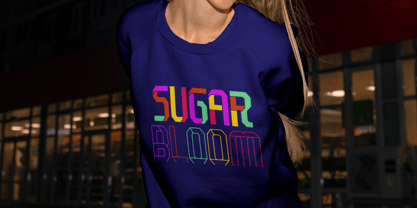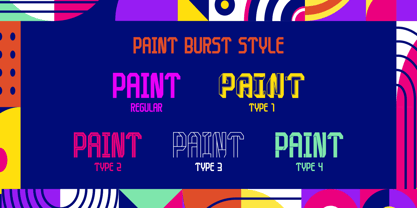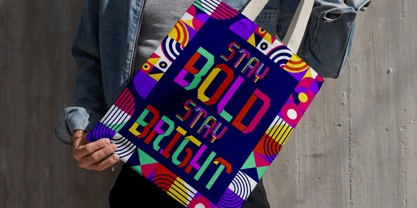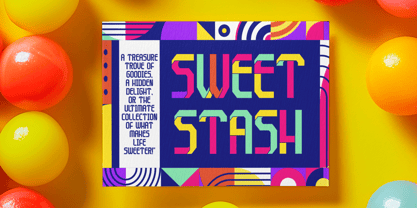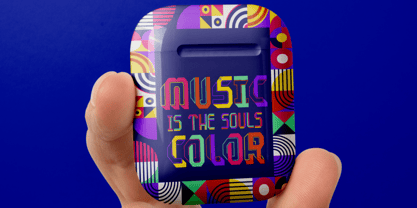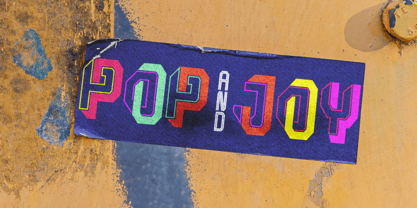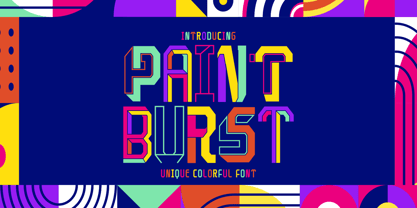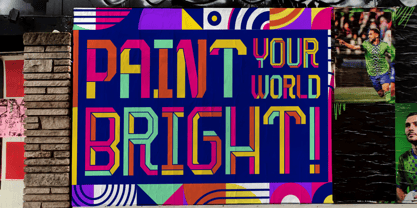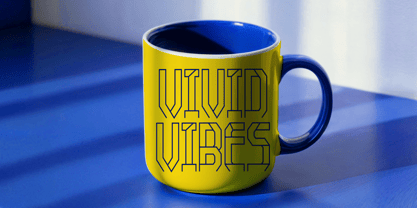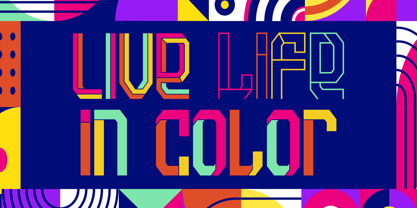
Paint Burst
by Shanaf
The Paint Burst Font Family was designed by Yesie Erma Yunita and published by Shanaf. Paint Burst contains 5 styles and family package options. More about this family
Paint Burst is a bold and imaginative colorful display font that explodes with energy and style. Each character in the set is uniquely crafted using geometric forms and modular strokes, resulting in an eclectic yet cohesive aesthetic. The font's key distinction lies in its vibrant multi-color layers and mix of outlined, filled, and sliced segments, creating an eye-catching, rhythmic motion in any design. Its style draws inspiration from pop art, retro arcade aesthetics, and modern digital abstraction—perfect for creative projects that demand attention. The letterforms combine thick and thin lines, angular cuts, and a variety of stroke directions, giving each glyph a unique personality while maintaining visual balance.
Designed for ultimate versatility, Paint Burst shines in branding, packaging, posters, and merchandise. Whether you're crafting a festival poster, designing colorful product labels, or producing youthful campaign headlines, this typeface instantly elevates the vibe. Its readability is optimized by bold structures and high contrast, while its multistyle approach brings a handcrafted, artsy character to every application. Perfect for projects in music, pop culture, fashion, and youth-centric marketing, this font is a must-have for bold visual storytellers. From digital graphics to physical prints, Paint Burst makes sure your message is not just read—but remembered.
Designers: Yesie Erma Yunita
Foundry: Shanaf